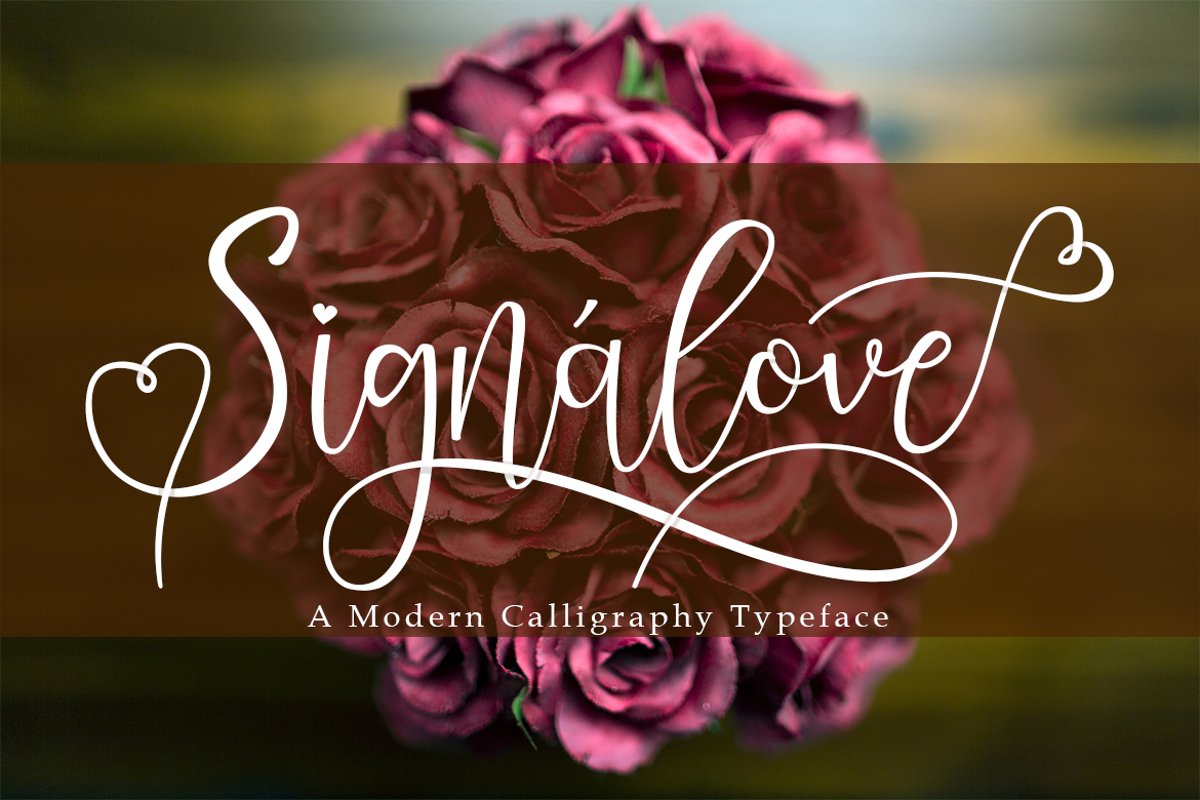
Signalove | Modern Calligraphy Typeface
Signalove
Singnalove is a romantic modern calligraphy typeface. It has various of alternates that will make your designs into a stunning result. Make a special design or craft with Signalove and be happy as always.
Signalove Font is an incredibly stunning and sweet script, full of love. Fall in love with its delicate swashes! Perfectly macth for design like banner, book cover, t-shirt, branding, promotion, social media post, quotes, wedding, photography and more.
• Ligatures and Stylistic Alternates